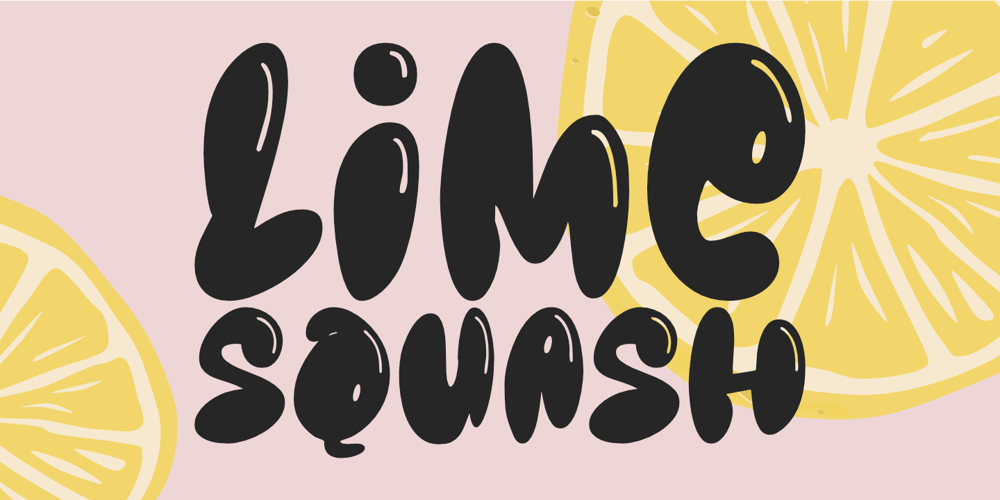
Lime Squash Font Family was designed by Aldy Sidik and published by Epiclinez. Lime Squash contains 1 styles and family package options. Bold, playful, and fresh – the lime squash font will make your design stand out from the rest. This fun, bold font will give your work an added creativity boost, whether for a logo, product packaging, or a headline. With its unique style that has been carefully crafted, the lime squash font is perfect for any creative project.